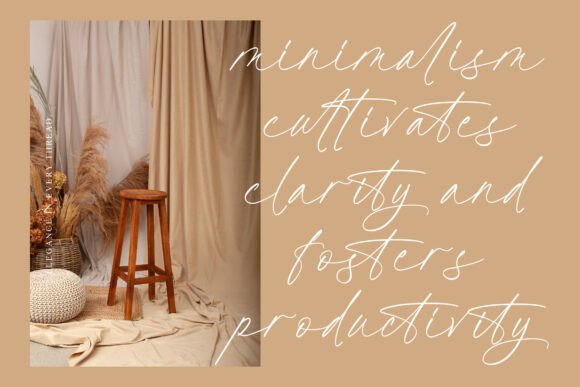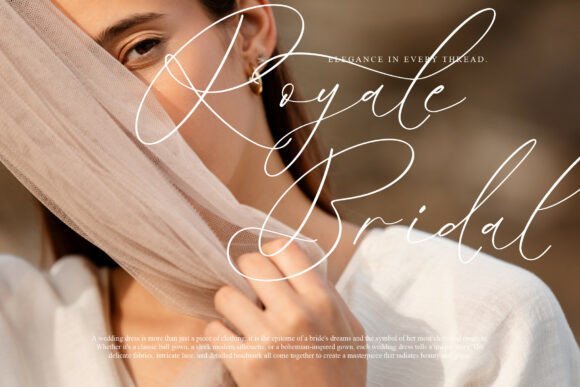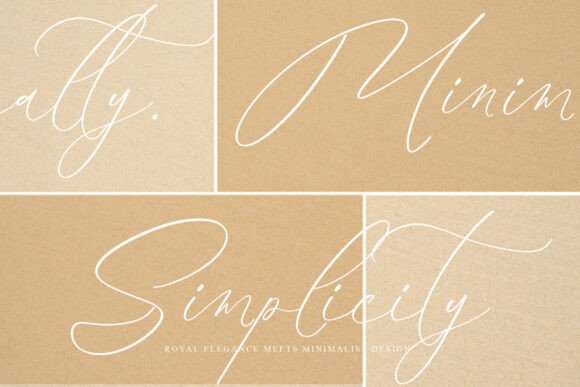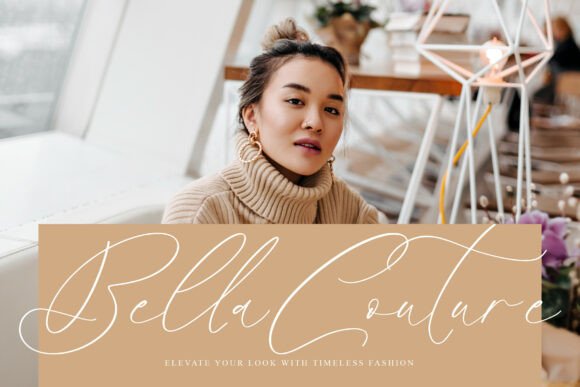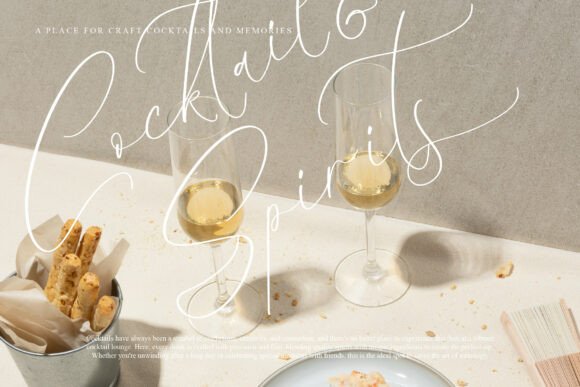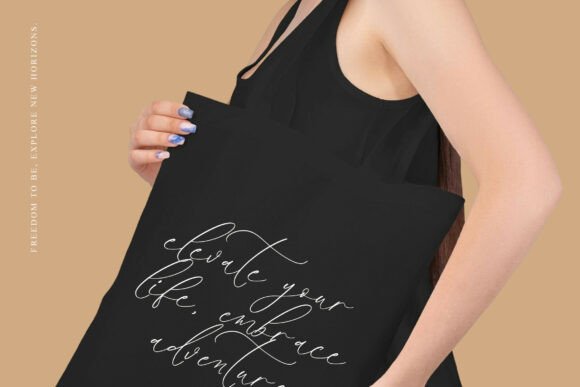
Introducing Brilliant Sculpted: Elevate Your Design with Refined Handwritten Elegance
In the world of typography, few fonts manage to convey luxury, sophistication, and elegance as effortlessly as Brilliant Sculpted. This exquisite handwritten script is meticulously crafted with graceful ligatures and flowing strokes, making it the perfect choice for designers and crafters aiming to add a touch of high-end flair to their projects. Whether you’re working on luxury branding, wedding invitations, or lifestyle content, Brilliant Sculpted offers the versatility and refinement you need to make your designs shine.
A Closer Look at Brilliant Sculpted
Brilliant Sculpted is more than just a font; it’s a statement piece. Its refined handwritten script is characterized by beautiful ligatures and fluid strokes that dance across the page, creating a sense of movement and elegance. This font is designed to evoke a sense of luxury and sophistication, making it ideal for projects that demand a high level of refinement.
Key Features of Brilliant Sculpted
- Graceful Ligatures and Flowing Strokes: Each letterform is carefully crafted to ensure a seamless flow, creating a beautiful and harmonious reading experience.
- Two Style Variations: Brilliant Sculpted offers two distinct styles, allowing designers to choose the perfect look for their project, whether it’s for a luxurious brand identity or a more whimsical wedding invitation.
- Full Multilingual Support: With support for multiple languages, Brilliant Sculpted is a versatile font that can be used in a wide range of projects, from global branding campaigns to multicultural events.
Perfect for Luxury Branding
In the realm of luxury branding, first impressions are everything. Brilliant Sculpted provides the perfect solution for brands looking to establish a sophisticated and elegant identity. Its refined appearance instantly elevates a brand’s visual presence, conveying a sense of exclusivity and high-end quality. Whether it’s for a logo, packaging, or marketing materials, Brilliant Sculpted helps luxury brands stand out with style and poise.
Elevate Your Wedding Invitations
For couples seeking a font that captures the essence of their special day, Brilliant Sculpted offers a romantic and elegant solution. Its flowing strokes and beautiful ligatures create a sense of intimacy and celebration, making it perfect for wedding invitations, save-the-dates, and other wedding-related stationery. With Brilliant Sculpted, couples can set the tone for a sophisticated and memorable event.
Ideal for Lifestyle Content
Brilliant Sculpted isn’t just limited to luxury branding and wedding stationery; it’s also an excellent choice for lifestyle content. Whether you’re creating content for fashion, beauty, or travel, this font adds a touch of elegance and sophistication. Its versatility makes it suitable for a wide range of applications, from editorial content to digital media.
Tips for Using Brilliant Sculpted
To get the most out of Brilliant Sculpted, consider the following tips:
- Pair with Simple Fonts: For maximum impact, pair Brilliant Sculpted with simpler fonts to create a striking contrast.
- Experiment with Ligatures: Take advantage of the font’s ligatures to add an extra layer of elegance to your designs.
- Adjust Font Sizes: Play with font sizes to create visual hierarchy and emphasize key elements in your design.
Brilliant Sculpted is a masterpiece of typographic design, offering a refined and elegant solution for designers and crafters. With its graceful ligatures, flowing strokes, and versatile style variations, it’s the perfect choice for luxury branding, wedding invitations, lifestyle content, and beyond. By incorporating Brilliant Sculpted into your projects, you’ll add a touch of sophistication and elegance that sets your designs apart.